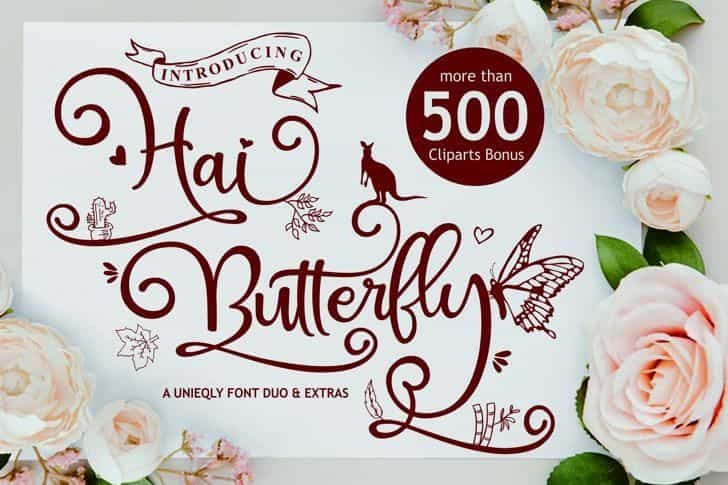
Proud to present the beautiful new Hai Butterfly Script Font! Hai Butterfly was designed to incorporate OpenType and it has beginning and ending swash, numbers, punctuation, alternates, ligatures and it also supports other languages.